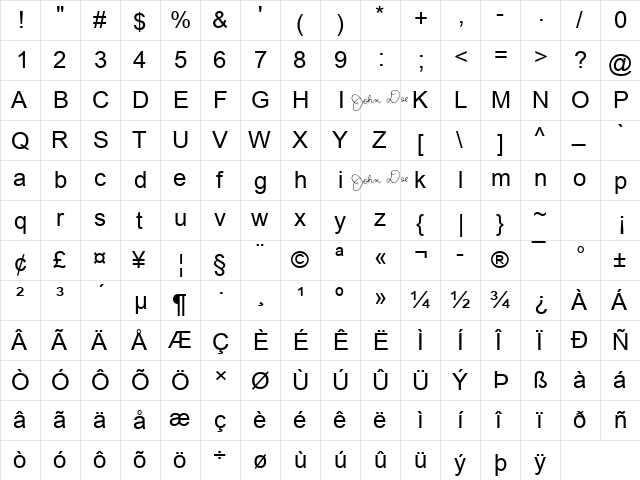
SignatureFont Regular
| Foundry | Enhanced Web Services |
| Designer | EWS -- James Klepac |
Design Context for SignatureFont Typeface
SignatureFont is a composed and adaptable typeface that performs quietly and consistently across a wide range of design contexts.